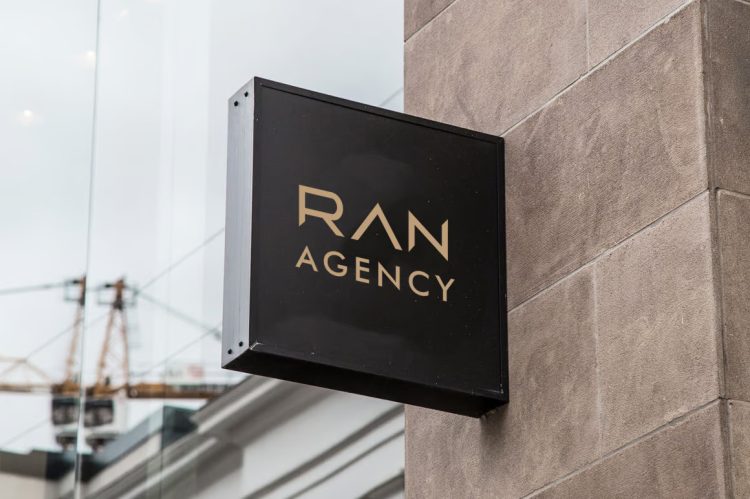
Deltha is a sans based font with unique lowercase that will make your design looks futuristic and modern. You can use this font for any purpose, especially to make logotype.